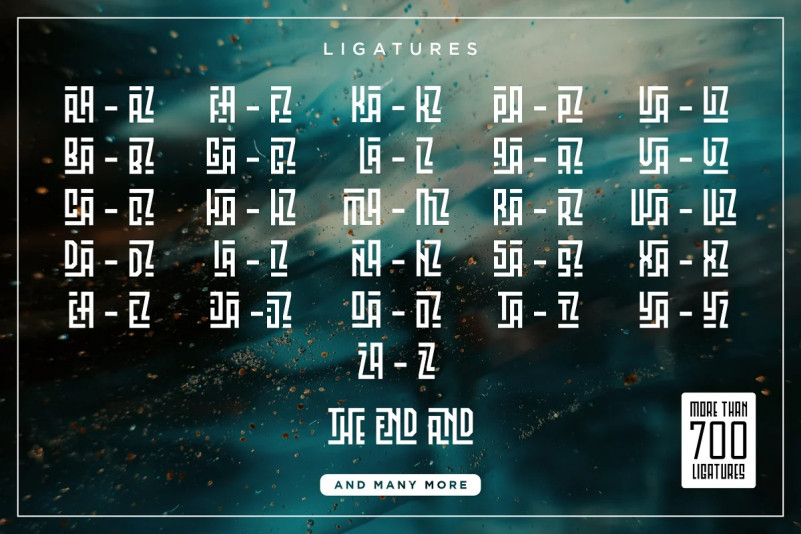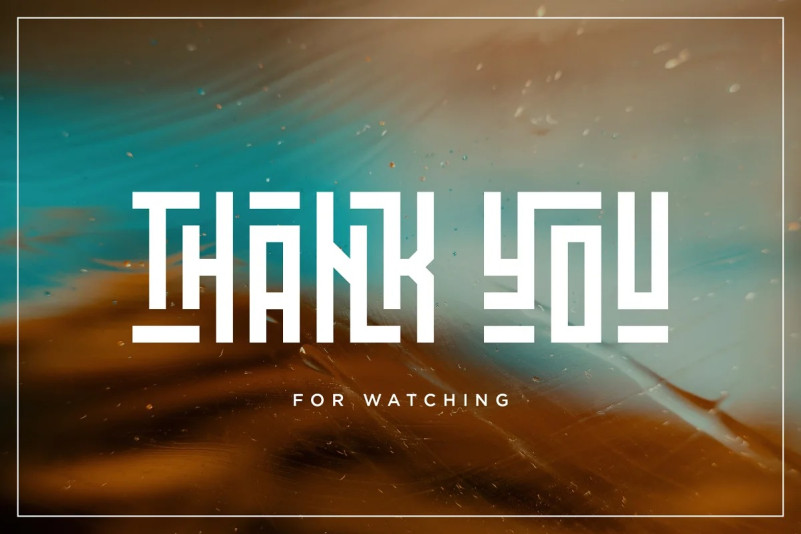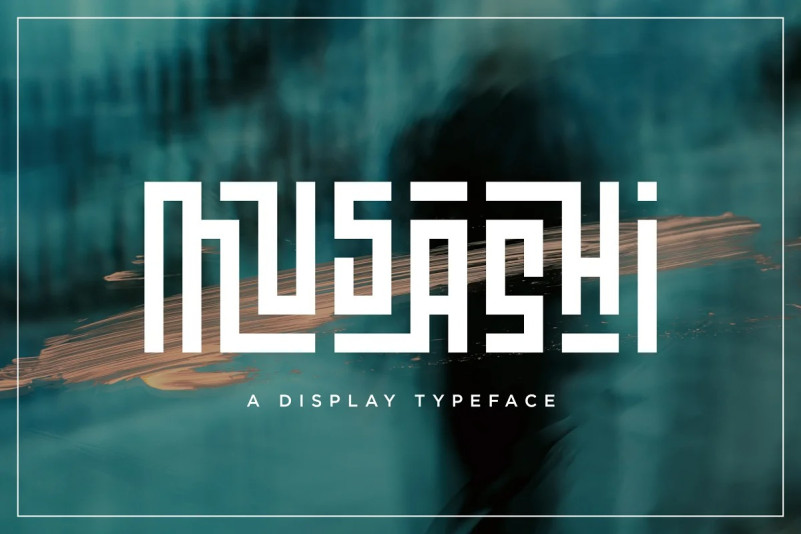
Musashi Font
Musashi Display Font a display font with 700++ ligature, Musashi packs a full set of capitals, number and punctuation. Be it gigs, sport events, logo design or etc. Musashi was made to bring impact.